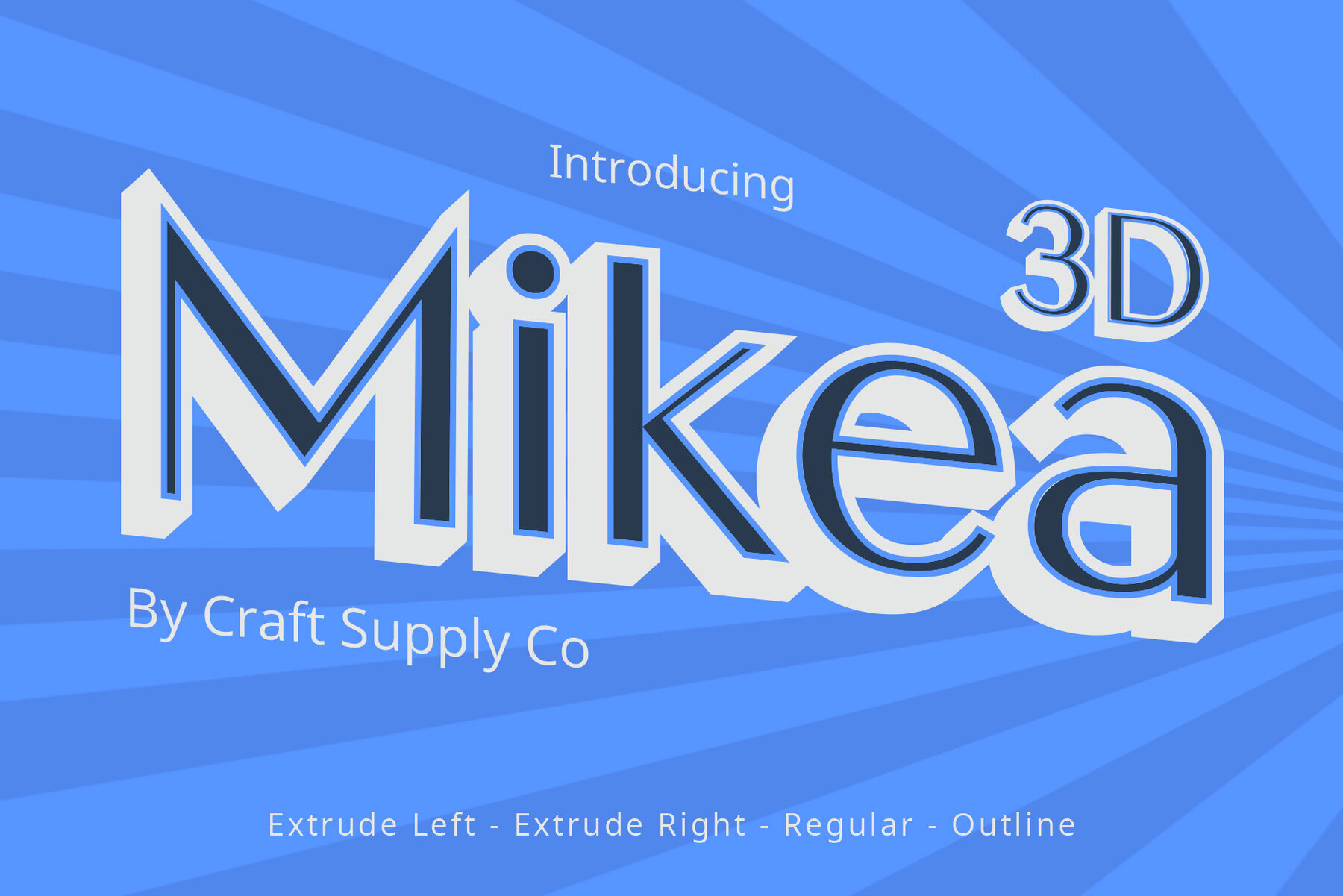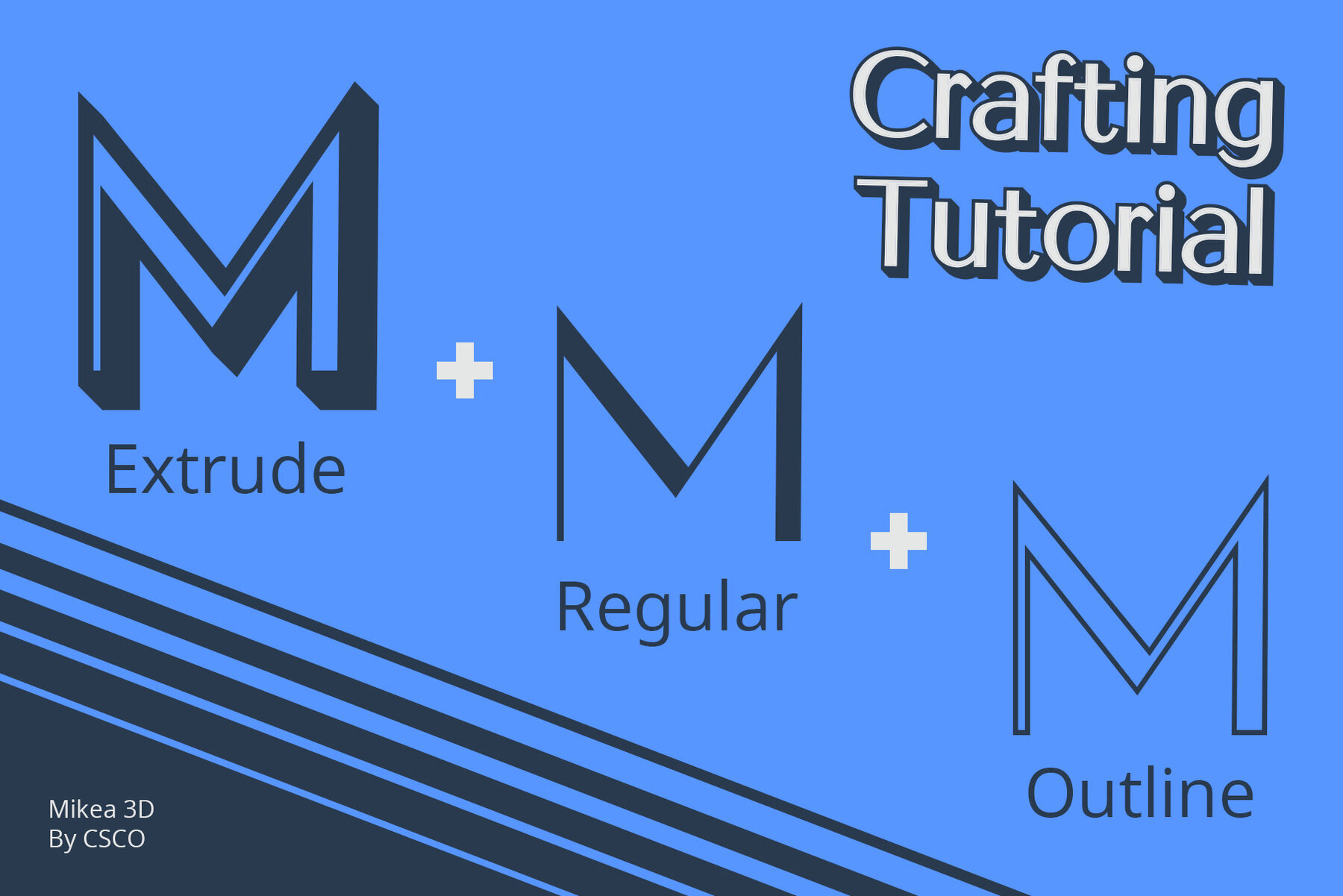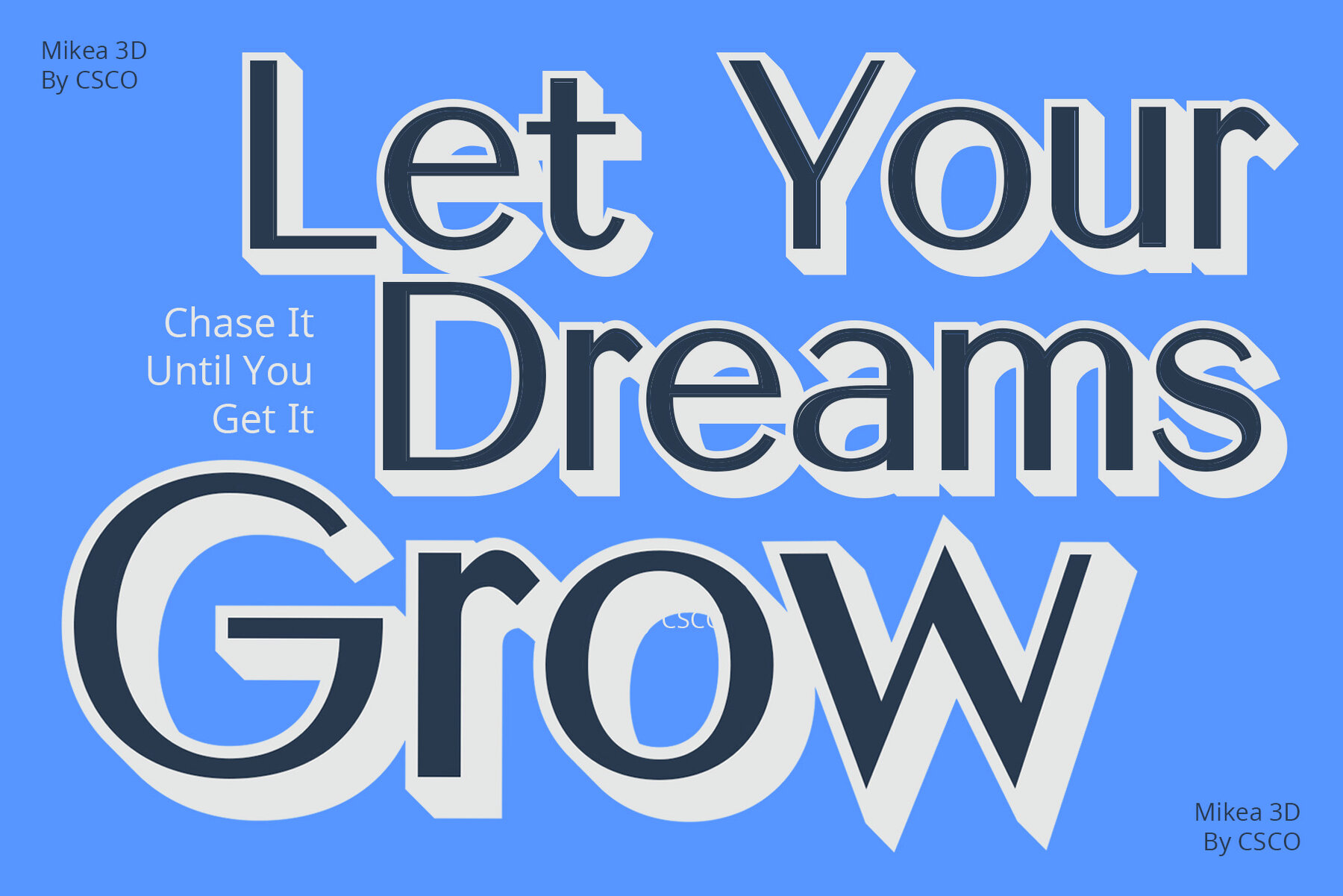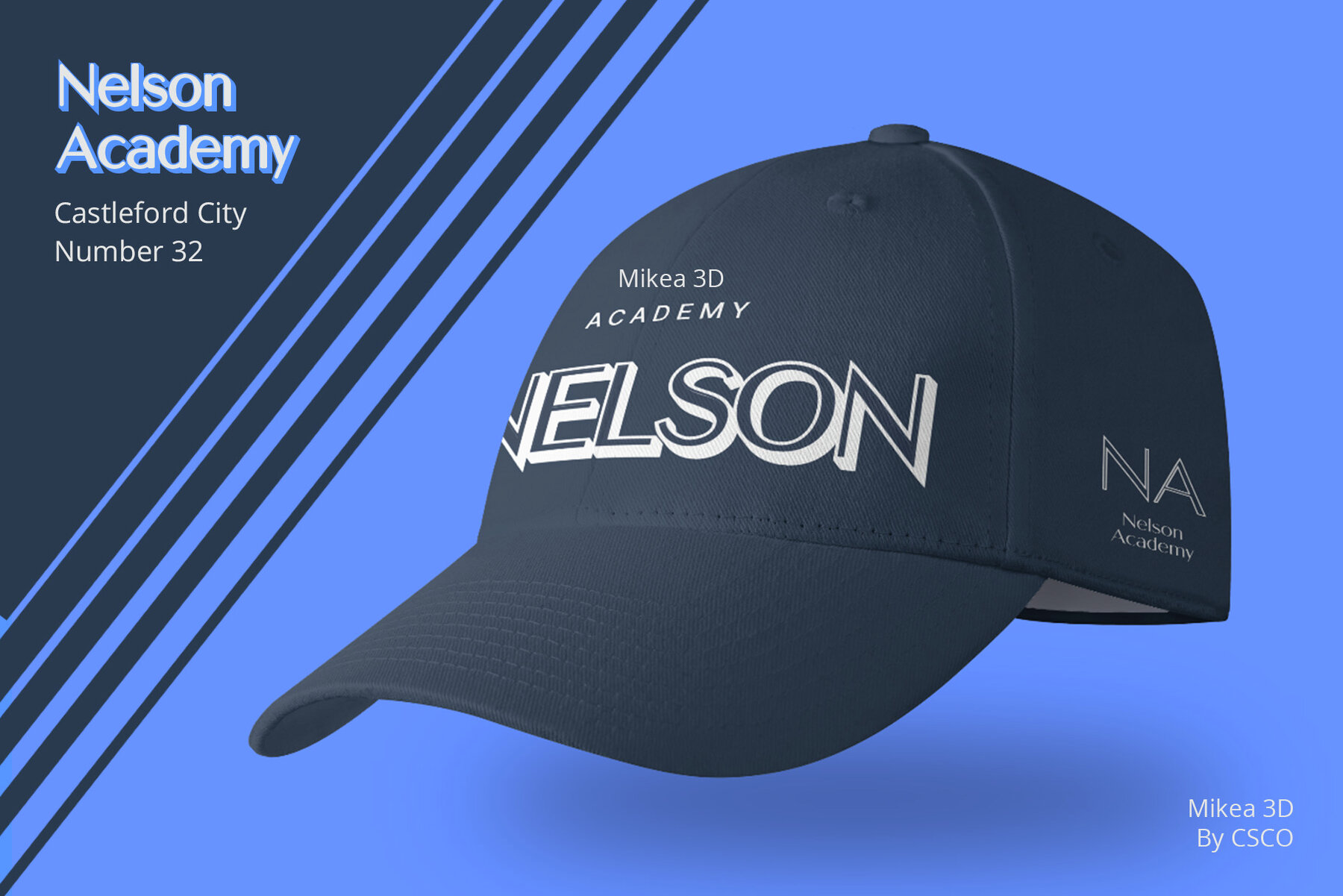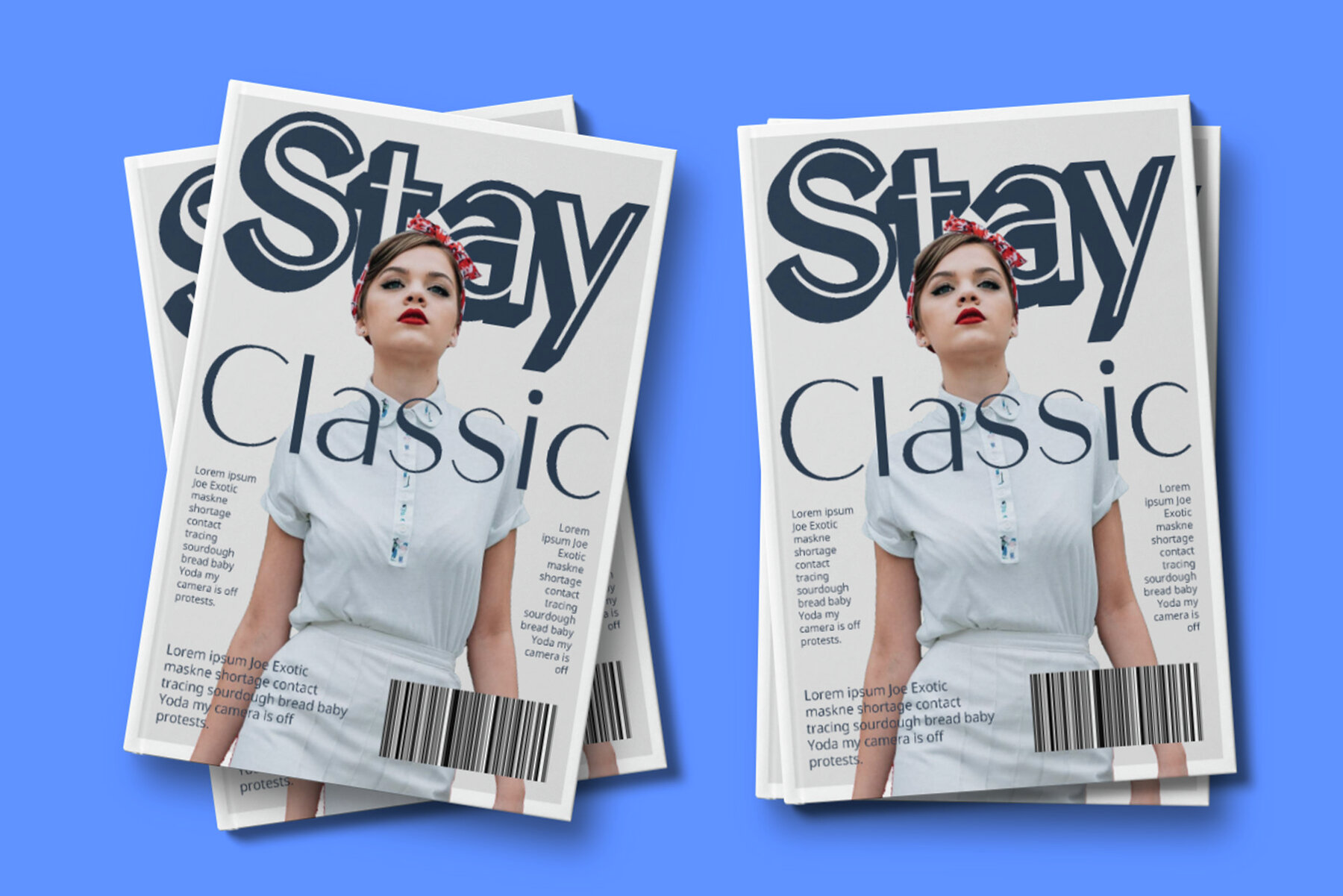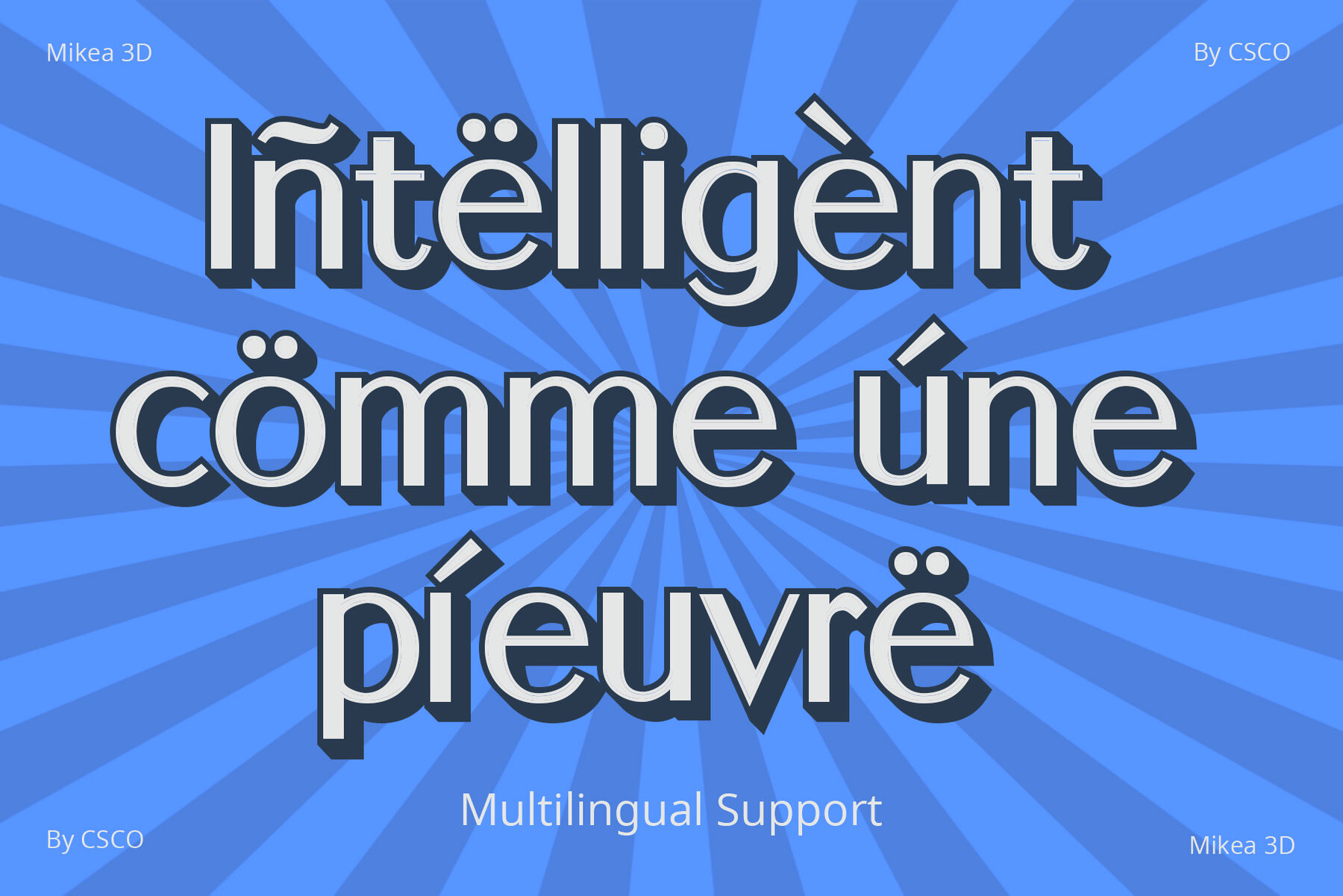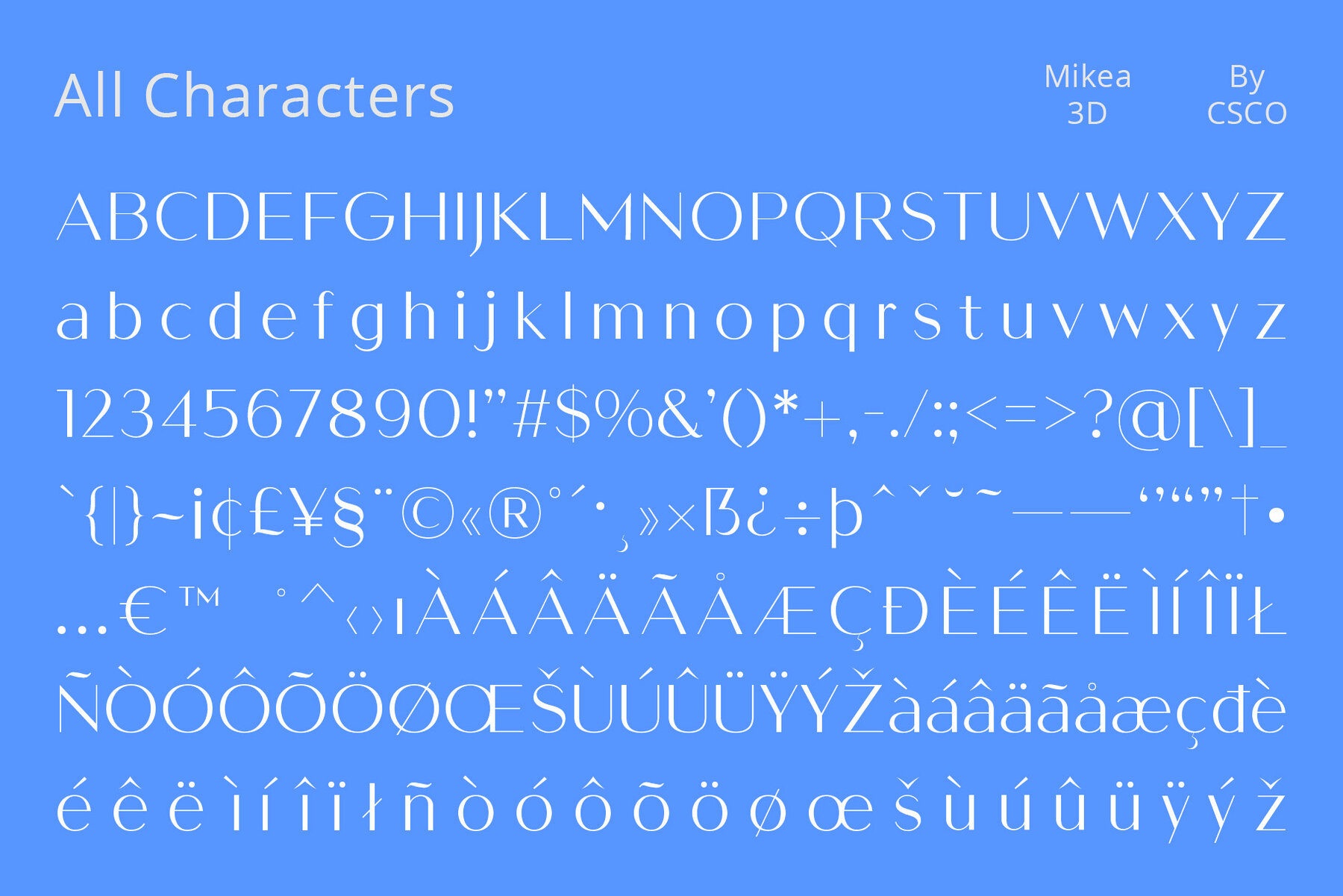
Mikea 3D Font
Mikea 3D revolutionizes the traditional sans serif font with its innovative three-dimensional design. Each character is enhanced with extrude effects and outlines, providing a stunning 3D illusion. This font captures attention by creating a visual impact that adds depth and realism to your designs. Ideal for graphic design, signage, or digital media, Mikea 3D offers a versatile solution for projects needing a modern, dynamic appearance. Integrate this font effortlessly into your projects to convey your message with a bold, three-dimensional effect. Mikea 3D is more than just a font; it's a transformative design element that turns text into a visual masterpiece. Elevate your work with its 3D magic. No specialized software is needed to use this typeface. For inquiries or assistance, please contact us. We appreciate your support in enhancing your creative projects! Best regards, Craft Supply Co.Mikea 3D: Captivating Sans Serif with Depth
Immersive Visual Impact
Versatile Application
Effortless Integration
Conclusion